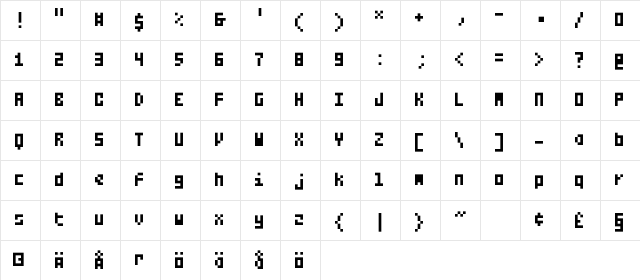
Small Talk Mono Tight Free Font
Small Talk Mono Tight
Style: Mono Tight
Design Context for Small Talk
Small Talk uses fixed-width spacing throughout, giving it the structured, systematic character associated with coding environments and technical documentation.
Pro Tip: Use Small Talk with slightly increased line-height for extended reading - fixed-width spacing can feel dense in longer passages without extra breathing room.